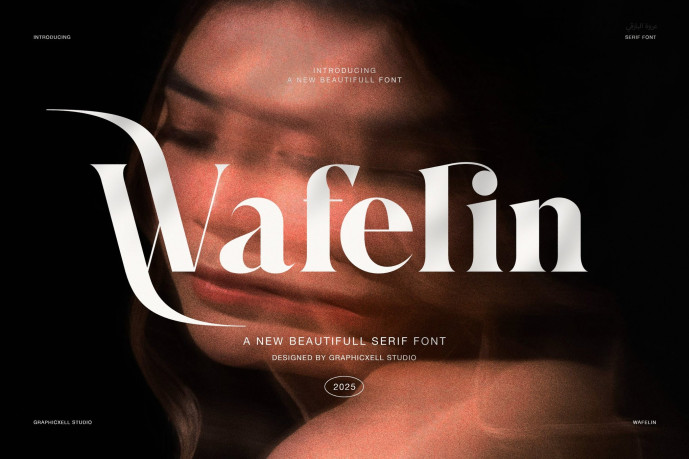
Wafelin Elegant Serif Font
Designer: Graphicxell
Wafelin Elegant Serif Font is a refined modern serif font that beautifully blends timeless style with a confident modern spirit. Designed by Graphicxell Studio, it captures elegance, sophistication, and personality in every curve. Each stroke flows with precision, while its balanced contrast adds a luxurious rhythm to your words.
Because Wafelin combines classic proportions with artistic innovation, it feels both modern and timeless. Its graceful letterforms invite attention without overpowering the design. Moreover, the smooth terminals and flowing shapes create a visual softness that makes every composition look harmonious and complete.
• Elegant ligatures and unique alternates
• Balanced spacing and refined structure